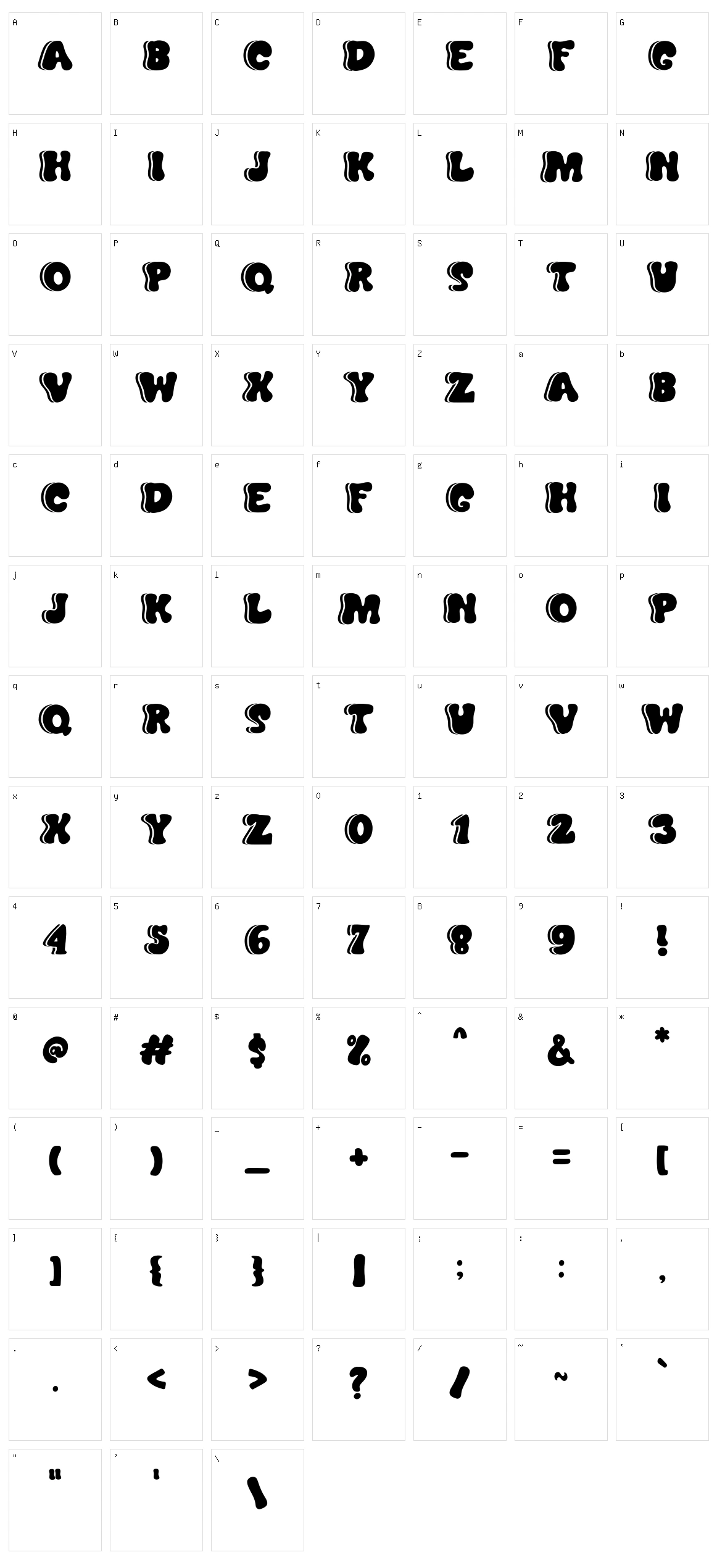
The free font Mecha Baby is carefully designed by Beautypes, showcasing a thoughtful balance of creativity and usability and falls under the Groovy font style. When you download the ZIP file, it contains only 55.54 KB of font files, making it lightweight and quick to download. Please review the license details below to understand permitted usage and distribution rights. If license information is not available, we recommend using this font for personal projects only or contacting the author directly for commercial usage permissions.